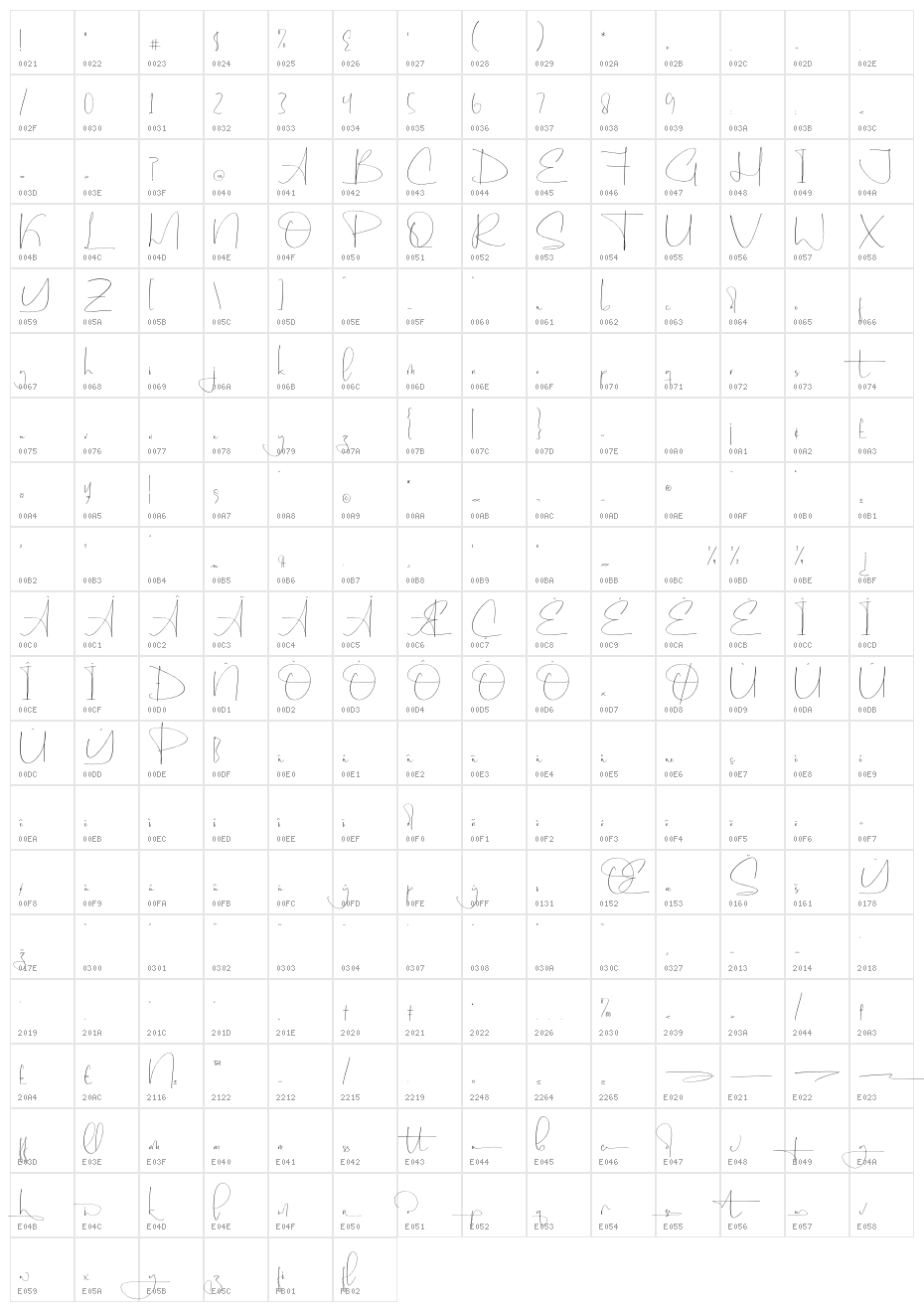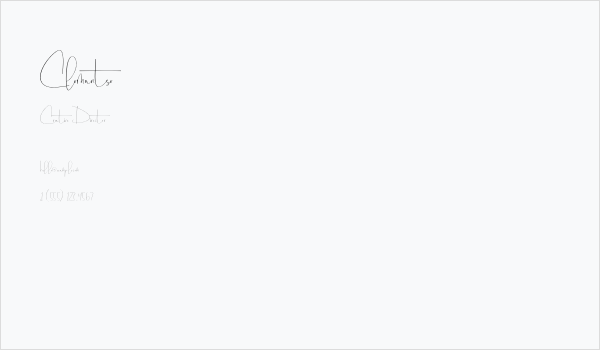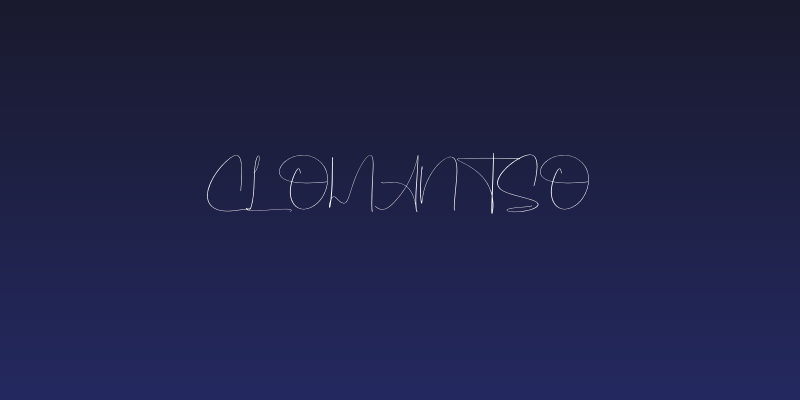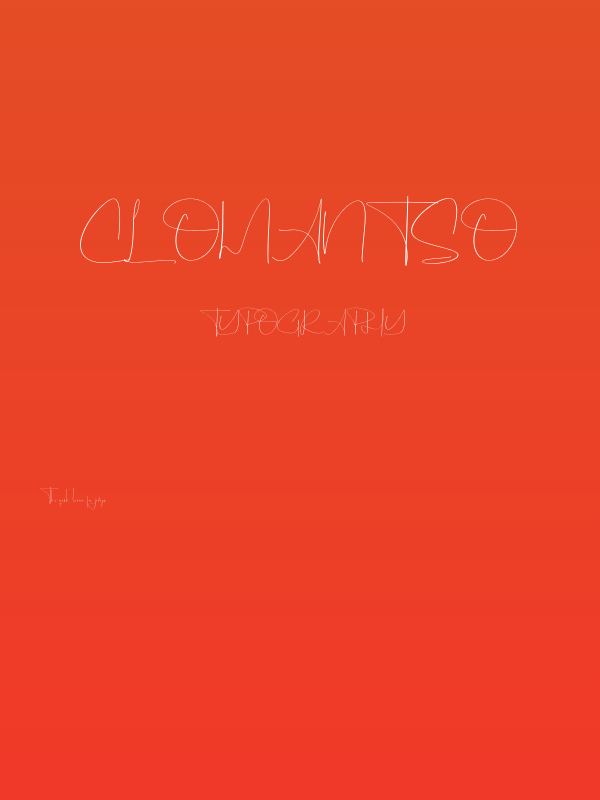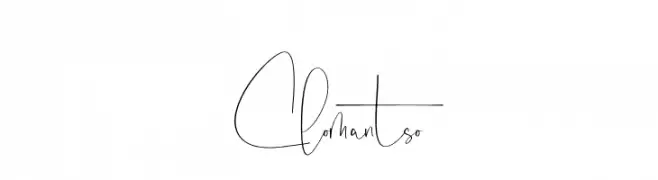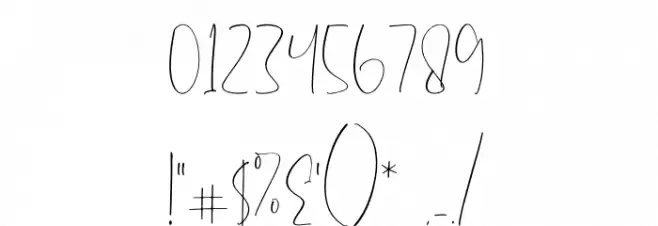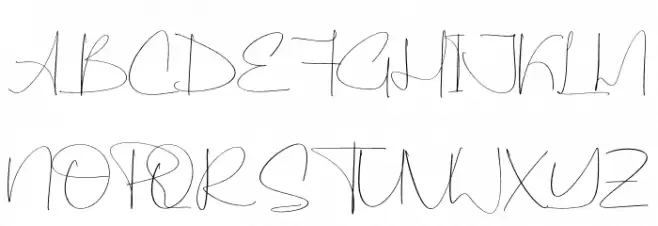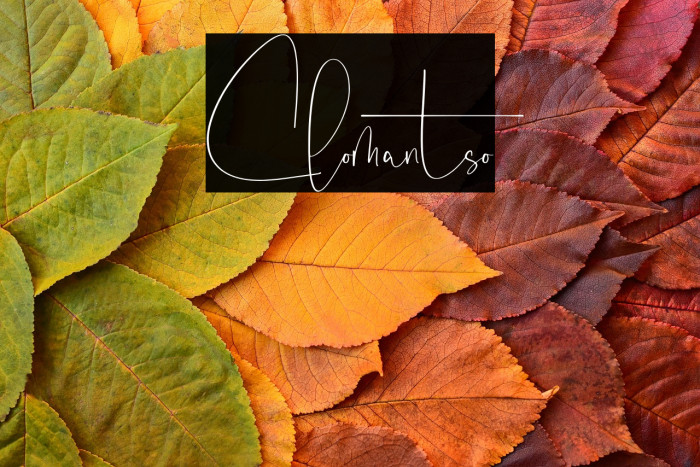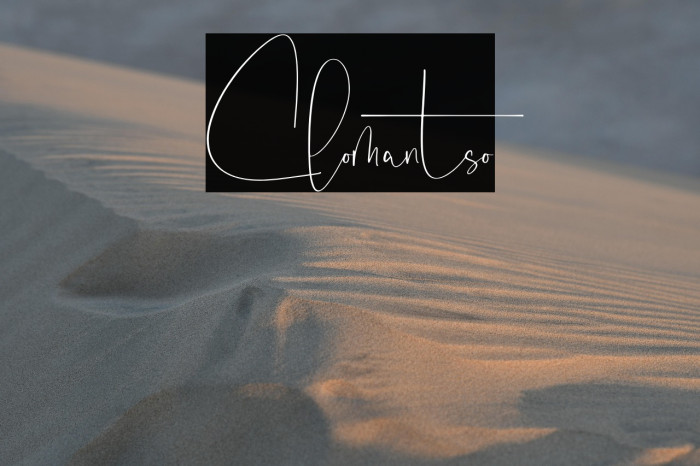
Clomantso Font
Clomantso Description
A thin, handwritten font with a casual and artistic style, featuring irregular strokes and a playful appearance.
| Overall Style | Casual, Artistic |
| Use Case | Logos, Artistic headings |
| Proposed Projects | Greeting cards, invitations, artistic projects. |